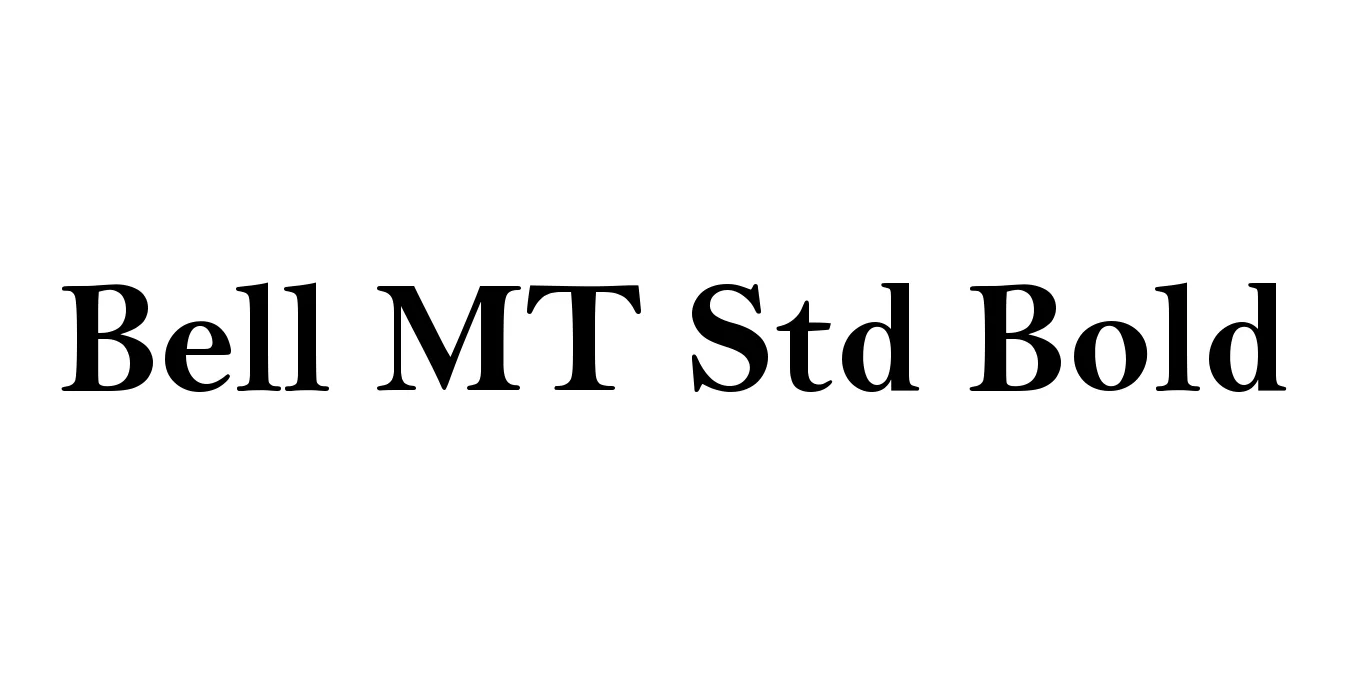
Bell MT Std Bold
Designed by Richard Austin
| Designer | Richard Austin |
| Similar Fonts | Baskerville, Bulmer, Scotch Roman, Bodoni, Century Schoolbook |
Bell MT Std Bold is based on the historic types cut by Richard Austin for the British Letter Foundry, established by John Bell in 1788. This typeface is recognized as the first "English Modern" face, representing a stylistic bridge between the Transitional faces like Baskerville and the high-contrast Didone styles of the 19th century. Austin's design introduced a vertical stress and sharp, fine serifs that gave the face a distinctively crisp and elegant appearance compared to the softer styles that preceded it.
The modern digital version was revived and expanded by the Monotype Corporation in 1931. The Bold weight is particularly effective for display purposes, maintaining the sophistication of the original Roman design while adding significant impact. Its refined proportions and clear legibility make it a perennial favorite for prestigious book publishing, formal editorial layouts, and high-end corporate identities that require a sense of established tradition and authority.
Bell MT Std Bold Best Uses
Ideal for sophisticated magazine headings and pull quotes.
Perfect for title pages, chapter headers, and covers in literature.
Used for prestigious logos and formal corporate documentation.
Adds a touch of class to wedding invitations and professional business cards.